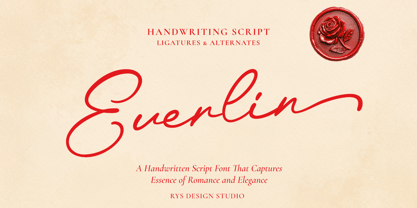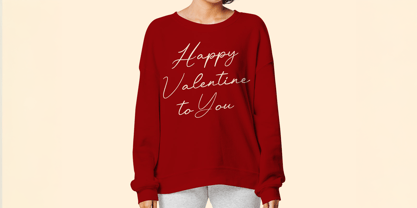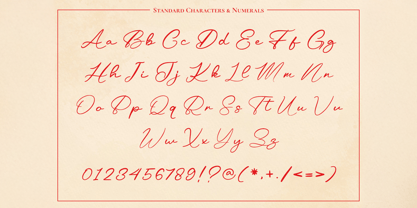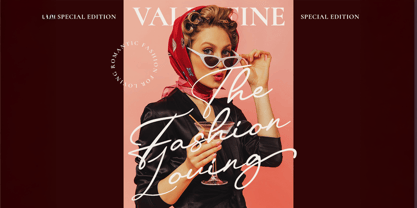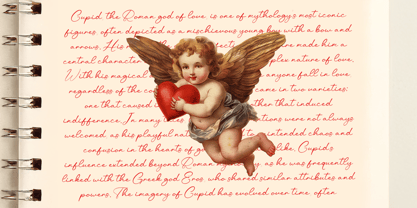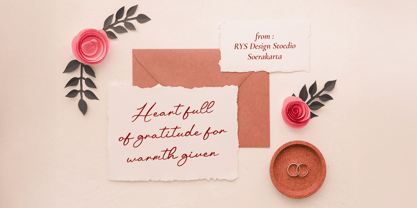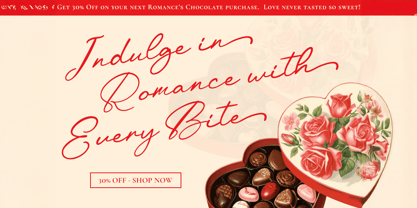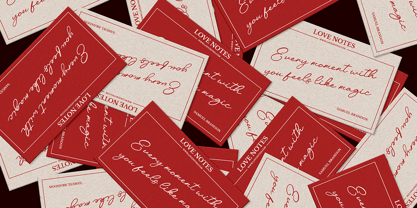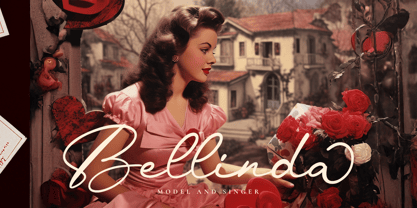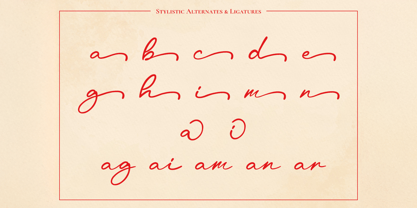
RYS Everlin
by RYS Design Studio
The RYS Everlin Font Family was designed by Witoko Aji Laksono and published by RYS Design Studio. RYS Everlin contains 1 styles. More about this family
Introducing RYS Everlin A Handwriting Script Font
Everlin is a Handwitten script font that captures the essence of romance and elegance. Its natural appearance makes it perfect for a variety of creative projects, including logos, branding, wedding invitations, merchandise, Valentine’s letters, signatures, inspirational quotes, and any design that calls for a touch of romantic, handwritten charm. With its graceful flow and vintage pen-like strokes, Pragase exudes timeless sophistication and heartfelt emotion.
Let Everlin add a romantic flair to your designs and make a lasting impression!
Designers: Witoko Aji Laksono
Foundry: RYS Design Studio